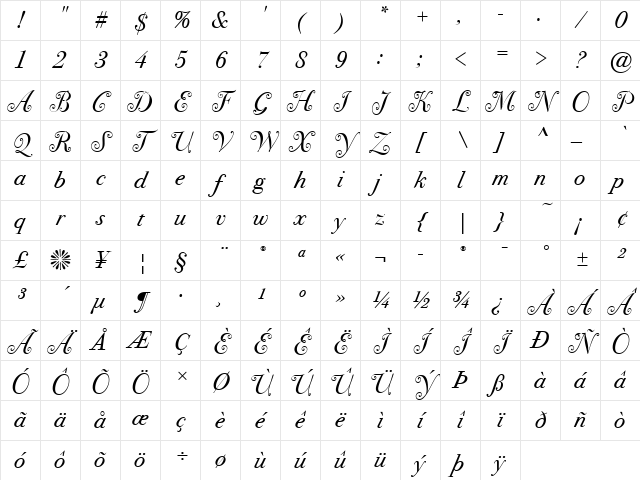
Complete Bodoni Sev Swash ITC Book Italic glyph index. Displaying only characters natively supported by Bodoni Sev Swash ITC Book Italic font.
Bodoni Sev Swash ITC flows with the natural rhythm of handwritten lettering, making it ideal for designs that call for warmth and personal expression.
Font Pairing: Combine Bodoni Sev Swash ITC with a simple geometric sans for maximum contrast - the tension between flowing curves and clean structure is a classic typographic pairing.
Pro Tip: Use Bodoni Sev Swash ITC for short runs of text - names, titles, or taglines. Extended body copy in script faces tires the eye quickly.